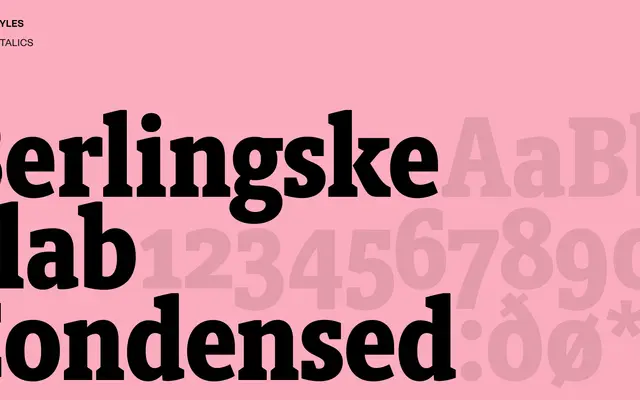
Berlingske Slab Condensed
A condensed slab serif drawn as part of the Berlingske type system, suited to tight editorial columns and newspaper-style display setting.
Part of Playtype's Berlingske family, this condensed slab serif carries the sturdy bracketed serifs and compact proportions typical of newspaper typography. The condensed width makes it practical for headline use where column width is limited. It fits comfortably within editorial and publishing contexts that call for a structured, authoritative tone.
A slab serif in condensed form, part of the Berlingske type system associated with Danish newspaper typography. The condensed cut positions it for space-efficient editorial and display settings.